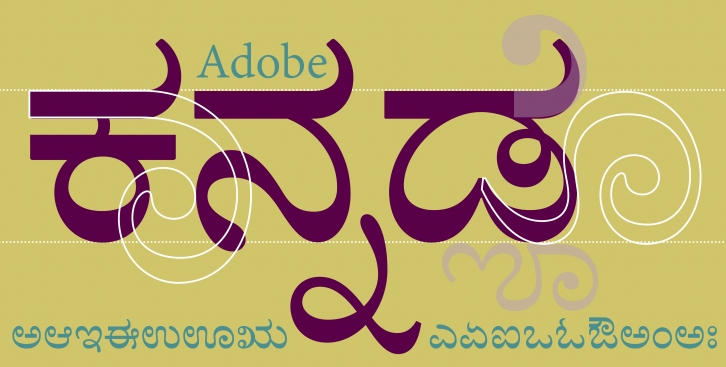
The Adobe Kannada typeface was designed by Erin McLaughlin, with Brahmic script expert Fiona Ross consulting on the design. This type family was designed to harmonize with Adobe’s other Brahmic fonts, both in terms of apparent size and style, to ensure that this suite of typeface families can be typeset together as a system. The primary intended usage — for printed outputs, particularly continuous text settings — guided the design direction.
The letter construction is based on traditional Kannada text typeface designs, including the influential Basel Mission Press Kannada typeface, which set a strong precedent for weight, form, and proportions for succeeding type designs for Kannada. Adobe Kannada features a contrast distribution somewhat lower than the norm so as to maintain strong, legible forms at small sizes. Careful attention to shaping and details allow these typefaces to be used in a range of type sizes from small text to heading and display sizes.
The Adobe Kannada fonts comply with the Unicode standard for character encoding and leverage OpenType layout to produce correct script shaping. A full set of Kannada ligatures is included in the fonts to provide the most natural shaping of Kannada text. The designer has provided careful kerning of all vowel signs and modifiers. The fonts include proportional Kannada numerals.